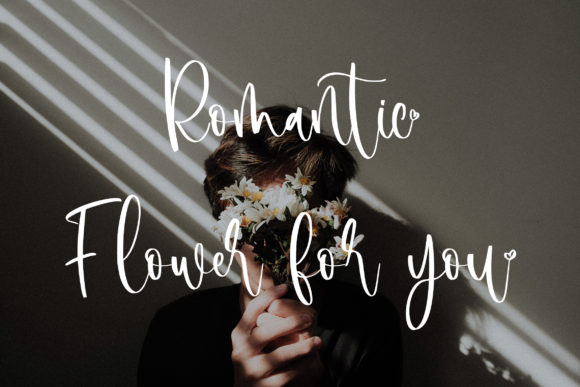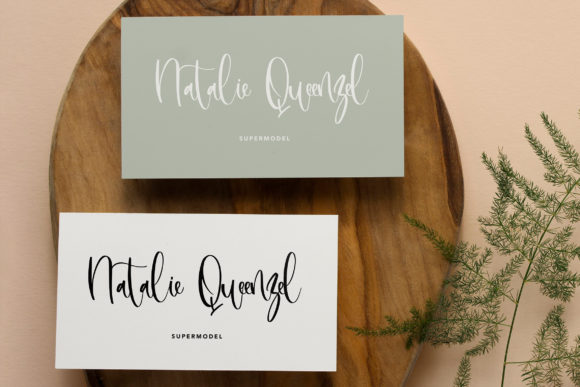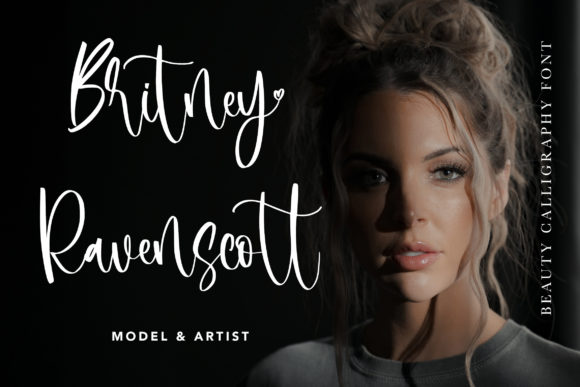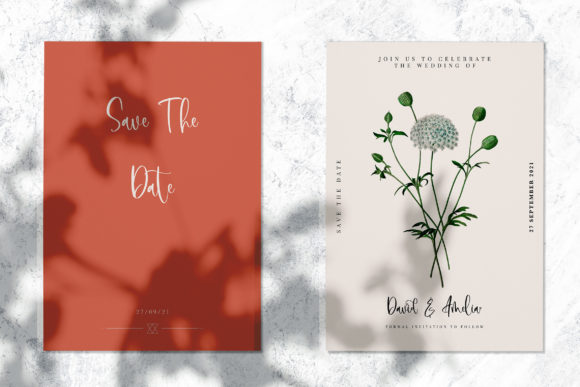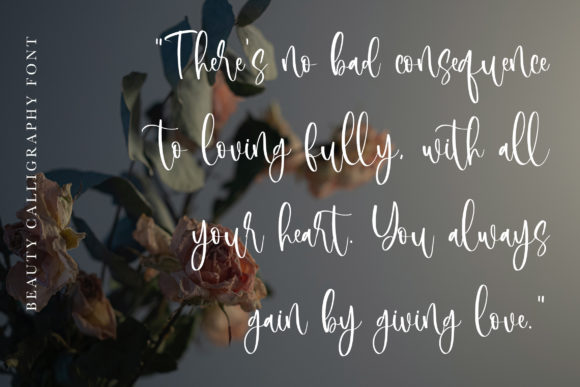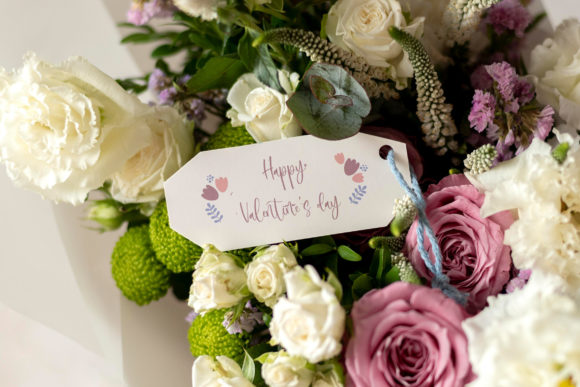
Introducing Anasthasia Font: Elevate Your Designs with a Stylish, Casual, and Trendy Handwritten Touch
In the world of design, fonts play a crucial role in conveying the message and aesthetic of a project. Whether you’re crafting a brand identity, creating engaging content, or designing a personal project, the right font can make all the difference. For those seeking a beautiful and refreshing look, Anasthasia Font is an excellent choice. This stylish, casual, and trendy handwritten font is specifically designed to add a touch of elegance and sophistication to your designs.
What is Anasthasia Font?
Anasthasia is a carefully crafted handwritten font that exudes a sense of style and casual charm. Its unique and refreshing design makes it perfect for a wide range of projects, from branding and advertising to packaging and digital content. The font’s creator aimed to produce a typeface that not only stands out but also complements various design elements, ensuring a cohesive and visually appealing outcome.
Key Features of Anasthasia Font
- Stylish and Trendy: Anasthasia boasts a modern and fashionable design, making it ideal for projects that require a contemporary look and feel.
- Casual and Friendly: The font’s handwritten nature gives it a warm and approachable vibe, perfect for designs that aim to connect with the audience on a personal level.
- Highly Versatile: Anasthasia can be used across various platforms and mediums, including print, digital, and web applications.
- Easy to Read: Despite its stylized appearance, the font maintains excellent readability, ensuring your message is conveyed clearly and effectively.
Who Can Benefit from Anasthasia Font?
Anasthasia Font is a valuable asset for a diverse range of designers and crafters, including:
- Graphic Designers: Looking for a stylish and versatile font to enhance their branding, advertising, and marketing materials.
- Digital Content Creators: Seeking a modern and engaging font for their blogs, social media posts, and website content.
- Packaging Designers: Needing a fresh and eye-catching font for product labels, packaging, and point-of-sale displays.
- DIY Crafters: Creating personalized crafts, such as cards, invitations, and scrapbooking projects, and wanting a beautiful handwritten font.
How to Use Anasthasia Font Effectively
To maximize the impact of Anasthasia Font in your designs, consider the following tips:
- Pair it with Contrasting Fonts: Combine Anasthasia with simpler fonts to create visual hierarchy and emphasize key information.
- Experiment with Colors: Take advantage of the font’s versatility by experimenting with different colors and gradients that match your brand’s palette.
- Play with Sizes: Use varying font sizes to add depth and emphasis to your design, making it more engaging and dynamic.
Anasthasia Font is a stylish, casual, and trendy handwritten font designed to bring a refreshing and elegant touch to your designs. Its versatility, readability, and modern aesthetic make it an excellent choice for a wide range of projects. Whether you’re a professional designer or a crafty DIY enthusiast, Anasthasia Font is sure to elevate your creative endeavors and help you achieve your design goals.